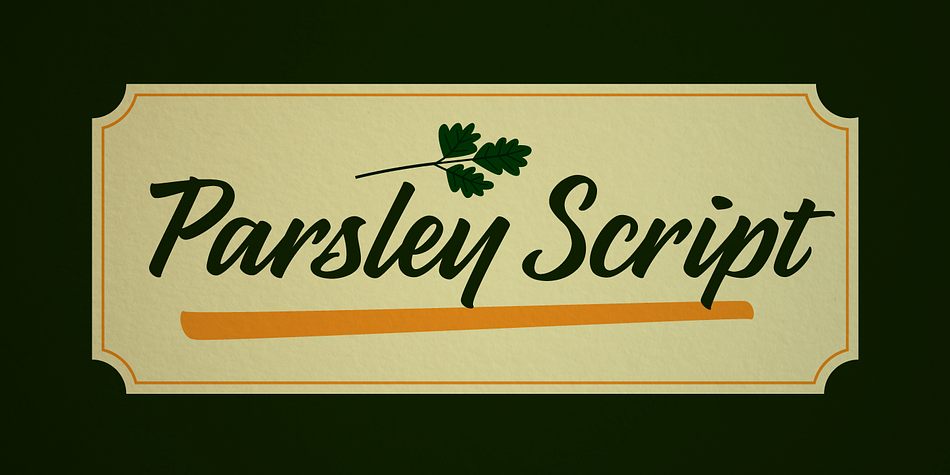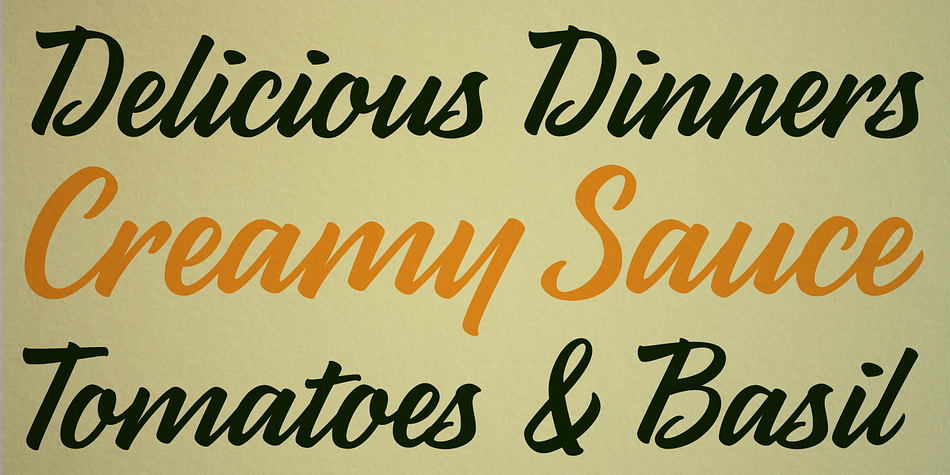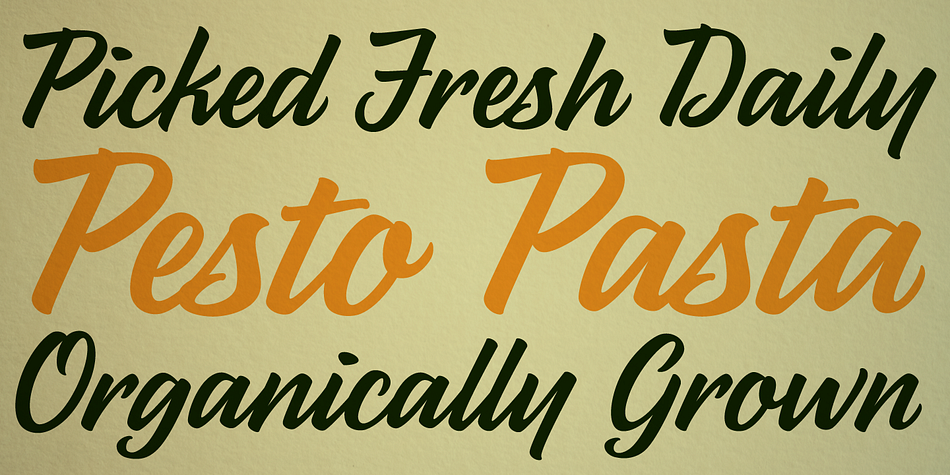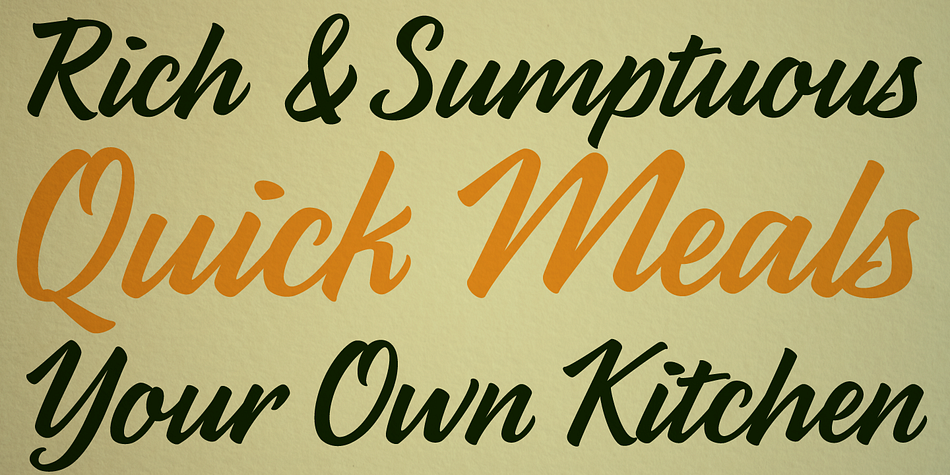
Parsley Script is a brush script font published by Blue Vinyl Fonts.
Parsley Script is a new script face in a pointed brush style.
Perfect for packaging design.